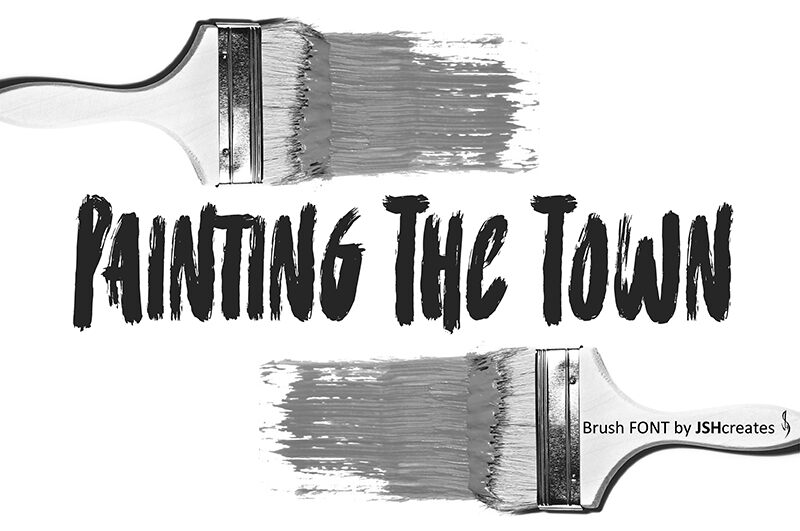
Painting The Town font by JSH creates is a bold brush typeface with an urban feel and grungy texture. It has an expressive character and an energetic aesthetic, which lead to its high visual impact. The uppercase letters in this font are condensed in width and appear natural, artistic, yet structured.
The artistic vibe of this free font makes it ideal for print and online writing-based designs such as book covers, posters, magazine covers, flyers, store signs, and website or social media banners. Other use cases include packaging design for pens or drawing books as well as product labeling.